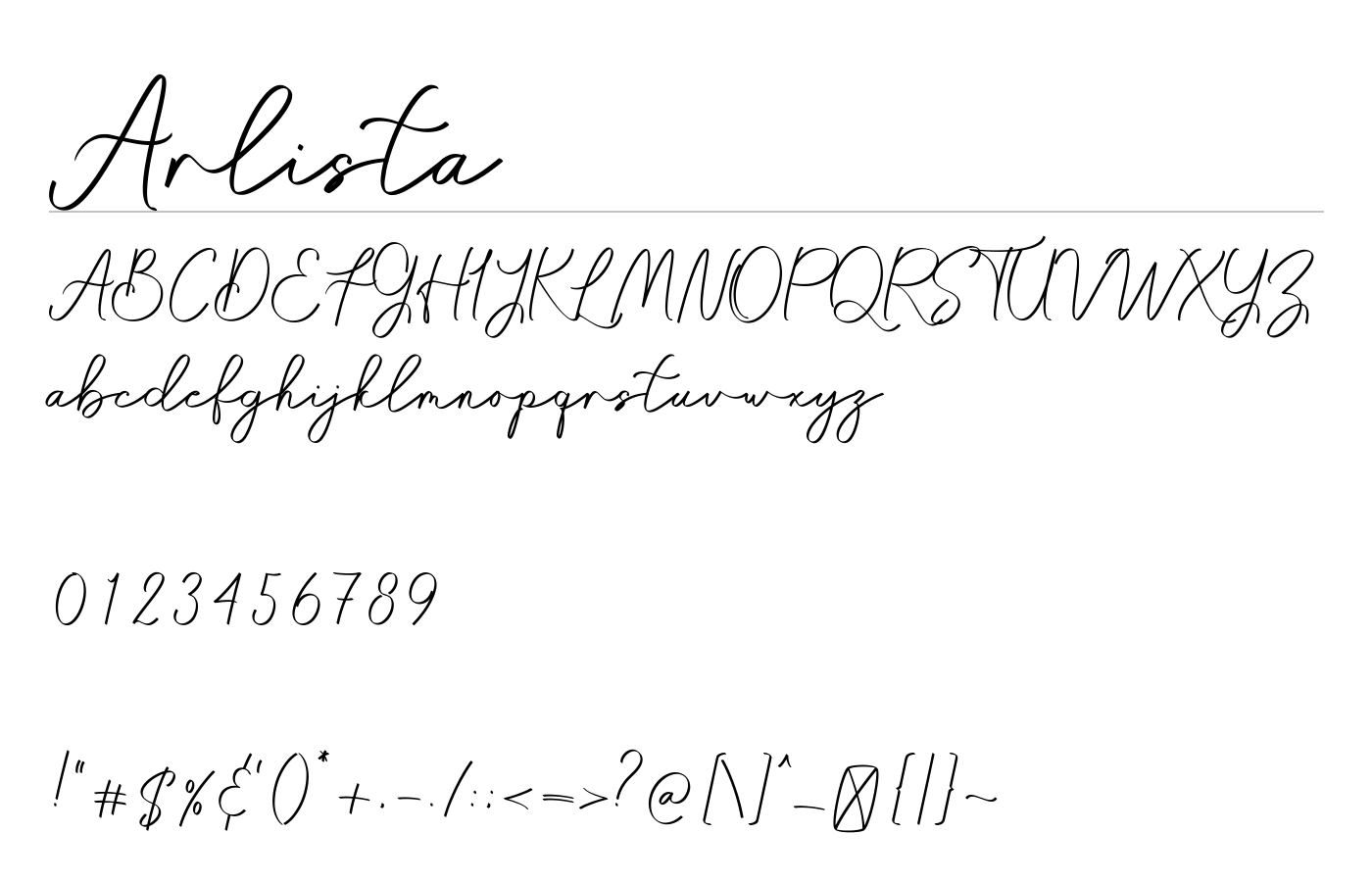
Arlista is an elegant, handwritten script font with a delicate, airy feel and smooth, flowing strokes. Its thin weight and slender letterforms give it a graceful and stylish personality, making it perfect for invitations, branding, and feminine design projects that require a personal and refined touch. This font works wonderfully in logos, headers, and decorative text where a sophisticated yet approachable look is desired.
Arlista Font
About Arlista Font
| Font family | Arlista Font |
| Designer | CBRTEXT Studio |